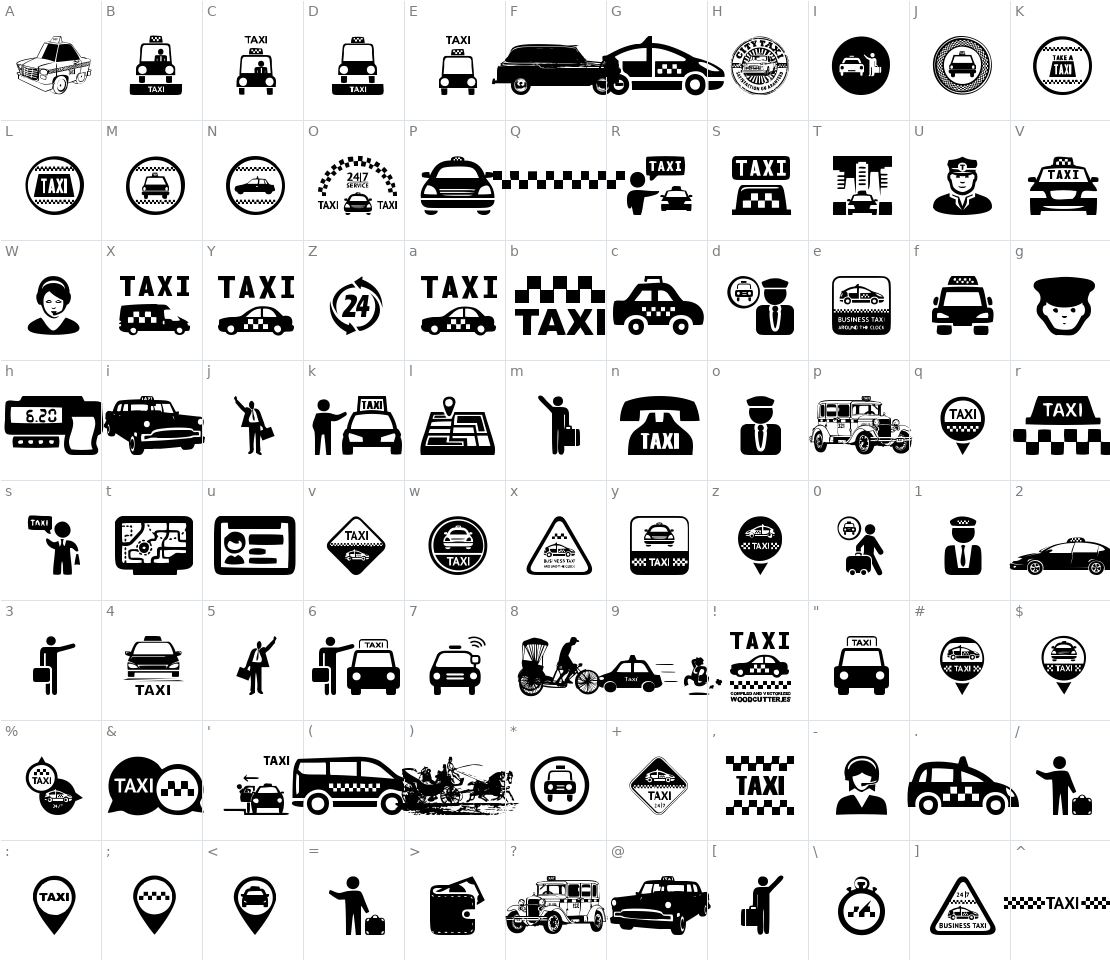
Taxi
Taxi is a dingbat font from Woodcutter featuring a set of taxi and transportation-themed icons, including cars, city vehicles, and urban symbols. It's a niche, single-purpose set built for projects related to transit, city life, or ride services where you need quick, consistent spot illustrations without reaching for separate icon files.